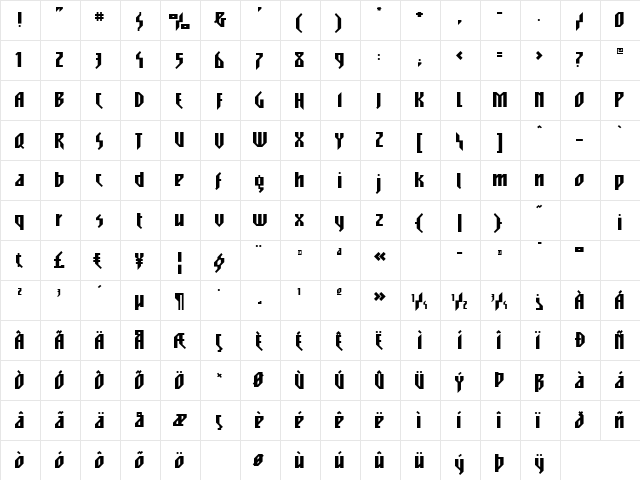
Traveller Bold
Design Context for Traveller Typeface
Traveller is a composed and adaptable typeface that performs quietly and consistently across a wide range of design contexts. The heavy weight commands attention and anchors typographic hierarchies.
Pro Tip: Use Traveller in both headline and body roles to test its range before committing to a single application.